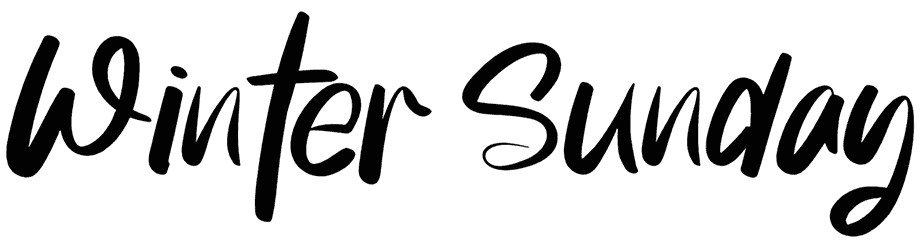
Winter Sunday Font
Never underestimate the importance of the audience’s expectations; they anticipate a professional graphic designer to try a captivating handwritten font such as Winter Sunday in graphic content, including product packaging, wedding invitations, gift cards, labels, and flyers. Alongside all its advantages, it can add a sense of professionalism, playfulness, respect, and softness to your creative designs.